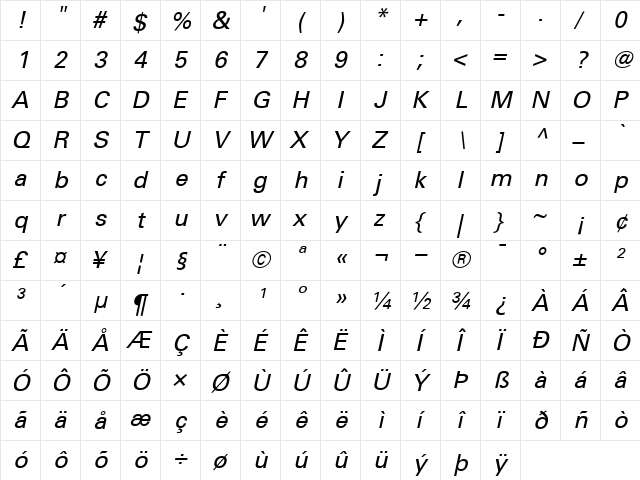
Univers55 RomanItalic Font Preview
Univers55 RomanItalic
Design Context for Univers55 Typeface
Univers55 takes a measured approach to typography — its balanced proportions and neutral character make it a reliable workhorse for both digital and print work. Its italic angle brings a sense of urgency and motion to the letterforms.
Pro Tip: Use Univers55 for emphasis, pull quotes, and subheadings where its slanted energy can add rhythm to the layout.